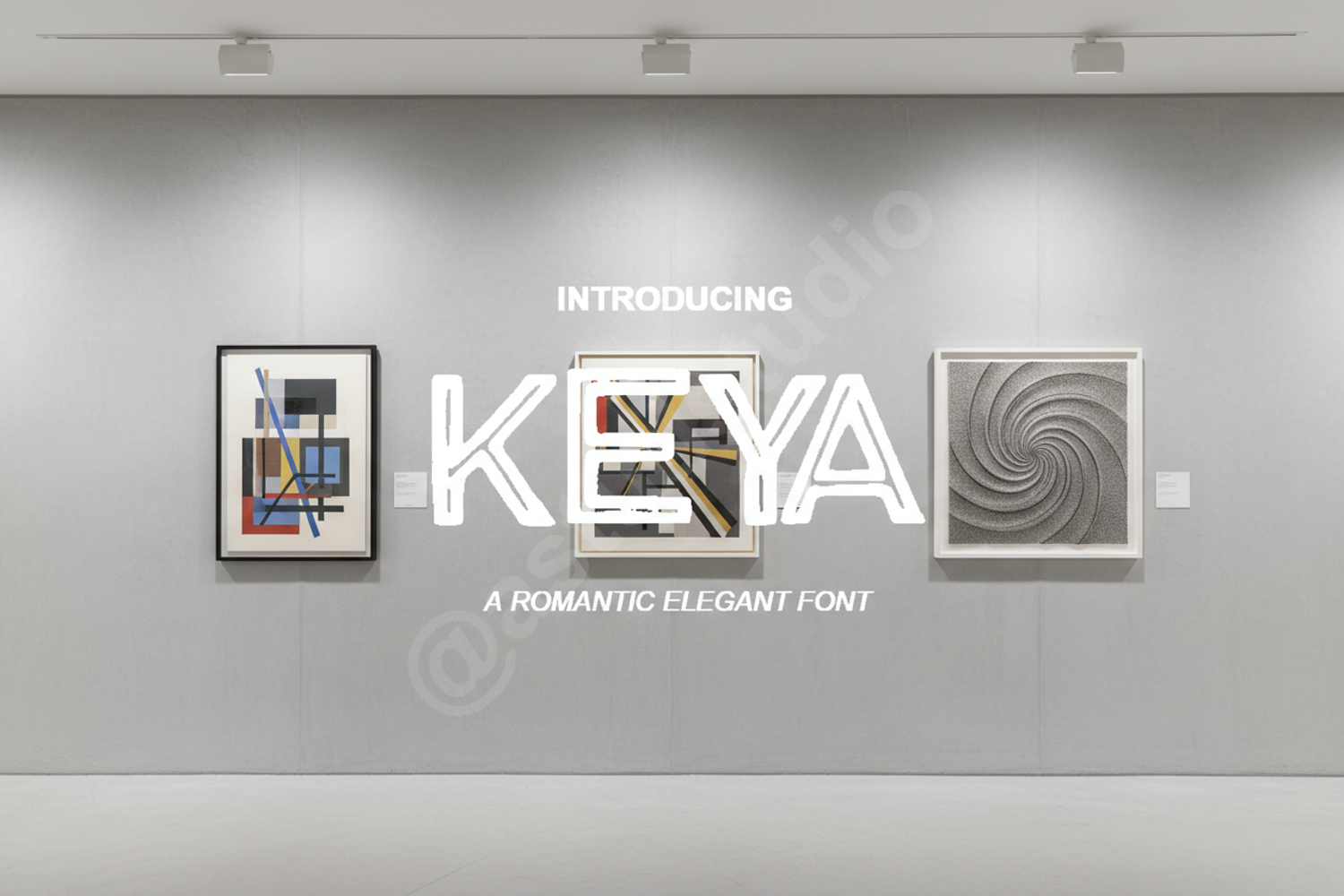
Keya - Sophisticated Modern Sans Serif
Keya
Keya is a premium, versatile sans serif font that balances modern aesthetics with timeless elegance. Designed with clean lines and balanced proportions, Keya is engineered to provide a sophisticated touch to any creative project. Whether you are aiming for a high-end luxury feel or a clean contemporary look, this font adapts seamlessly to your vision.
- Premium Branding and Visual Identity
- Minimalist Logo Design
- Editorial Layouts and Magazine Spreads
- Modern Wedding Invitations and Stationery
- Social Media Graphics and Digital Marketing
- Website Headers and UI Design